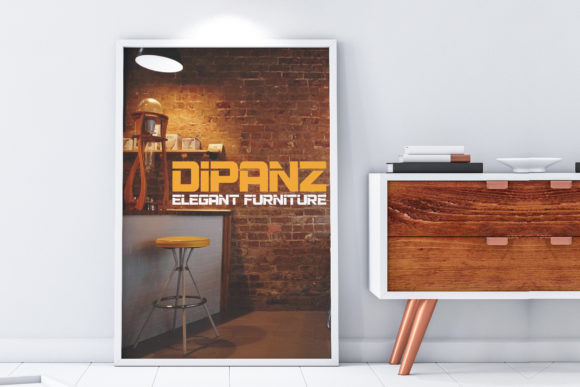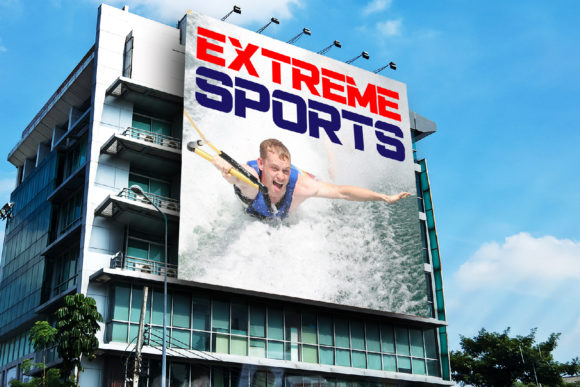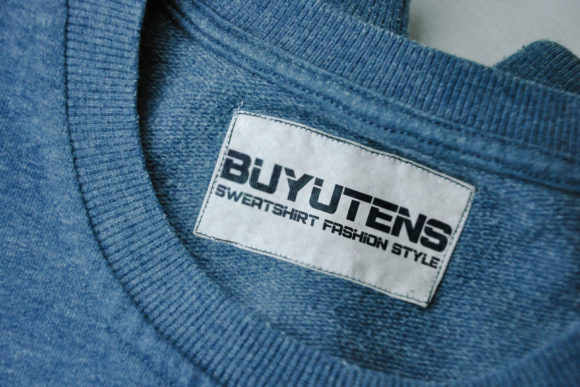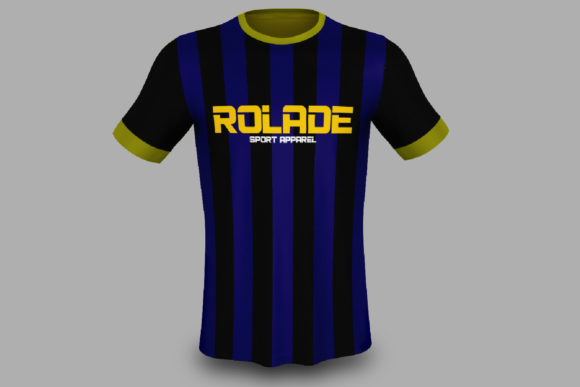
Introducing Forces Font: The Ultimate Display Font for Bold and Creative Ideas
Are you tired of using the same old fonts for your creative projects? Do you want to make your designs stand out from the crowd? Look no further than Forces Font, a bold and thick lettered display font that’s sure to take your work to the next level. In this article, we’ll explore the features and benefits of Forces Font, and show you how to incorporate it into your design workflow.
What is Forces Font?
Forces Font is a display font designed to make a statement. Its bold and thick lettering makes it perfect for headlines, titles, and other attention-grabbing elements. The font is clean and modern, with a strong and confident look that’s sure to grab the attention of your audience. Whether you’re a designer, craftsperson, or DIY enthusiast, Forces Font is a versatile and powerful tool that can help you bring your creative ideas to life.
Key Features of Forces Font
- Bold and Thick Lettering: Forces Font features bold and thick lettering that’s perfect for making a statement.
- Clean and Modern Design: The font has a clean and modern design that’s perfect for a wide range of creative projects.
- Highly Versatile: Forces Font can be used for a variety of projects, from posters and flyers to logos and branding.
- Easily Readable: Despite its bold and thick lettering, Forces Font is still easily readable, making it perfect for use in a variety of contexts.
How to Use Forces Font in Your Designs
Forces Font is incredibly easy to use, and can be incorporated into your design workflow in a variety of ways. Here are a few ideas to get you started:
- Use it as a Headline Font: Forces Font is perfect for use as a headline font, adding a bold and attention-grabbing element to your designs.
- Add it to Your Logo: Use Forces Font to create a bold and memorable logo that’s sure to stand out.
- Use it in Your Branding: Forces Font can be used throughout your branding, from business cards to letterheads and more.
- Experiment with Different Colors and Textures: Forces Font looks great in a variety of colors and textures, so don’t be afraid to experiment and find the look that works best for your project.
Benefits of Using Forces Font
There are many benefits to using Forces Font in your designs. Here are a few:
- Increased Visibility: Forces Font is designed to grab attention, making it perfect for use in designs where you want to stand out.
- Improved Brand Recognition: By using Forces Font in your branding, you can create a bold and memorable identity that’s sure to stick in the minds of your audience.
- Easier Design Process: Forces Font is incredibly easy to use, making it a great choice for designers who want to streamline their workflow.
- Endless Creative Possibilities: With Forces Font, the creative possibilities are endless. Use it to create stunning posters, eye-catching logos, and more.
Forces Font is a bold and powerful display font that’s perfect for designers, craftspersons, and DIY enthusiasts who want to take their creative projects to the next level. With its bold and thick lettering, clean and modern design, and highly versatile nature, Forces Font is a must-have for anyone looking to add a little excitement to their designs. So why wait? Download Forces Font today and start making a statement with your designs!
- Is Forces Font easy to read?
- Yes, despite its bold and thick lettering, Forces Font is still easily readable, making it perfect for use in a variety of contexts.